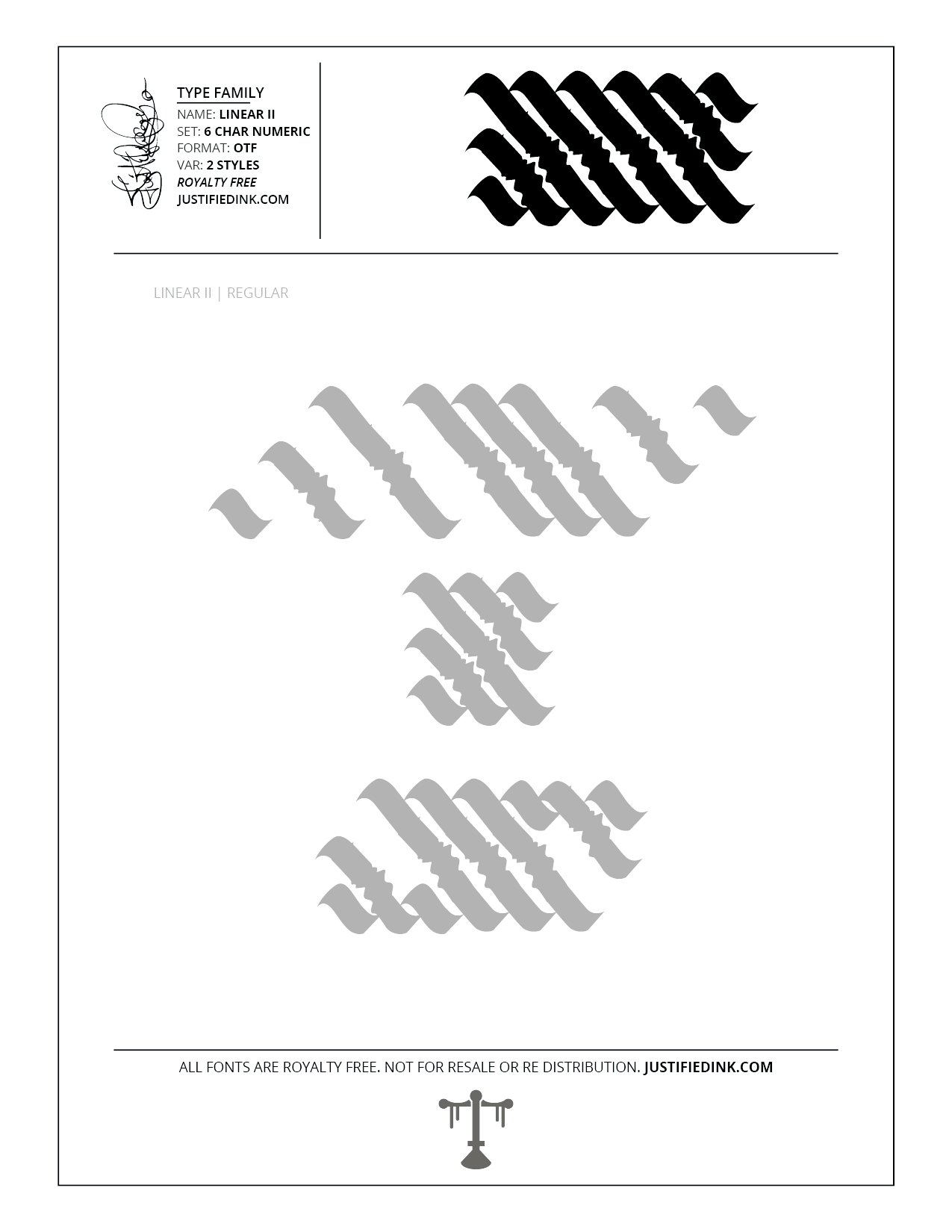
Linear II (2 styles) - Custom Font by Justified Ink
NAME: Linear II
Linear II is another experiment to use the numerical keys to type decorative elements. Taking this concept a step further to create a system for "digital clock" style letters and numbers using the numerical keys to add the corresponding pieces.
This font is part of the collection by Justified Ink, called Blackletter II. After 15+ years creating, I began to focus on building personal libraries of my work. The Blackletter II Collection was created through writing page after page, and countless hours over a 2 year span of daily practice. Each font from this collection has been hand drawn, manually vectored, and custom set as a type-able font. It comes in a full set of 6/9 char numeric. Each font family has variations in styles and/or non-alpha chars.